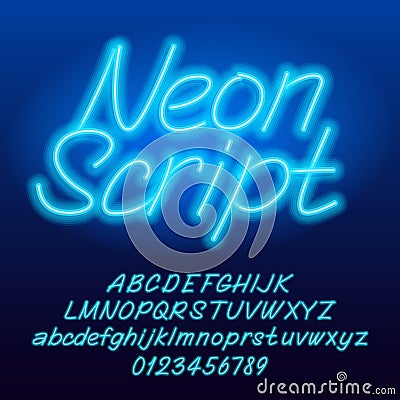
Neon Script Alphabet Font. Blue Color Lowercase And Uppercase Shiny Letters And Numbers. Vector Illustration
Neon script alphabet font. Blue color lowercase and uppercase shiny letters and numbers. #136510240
Neon script alphabet font. Blue color lowercase and uppercase shiny letters and numbers. Stock vector typescript for your typography design.